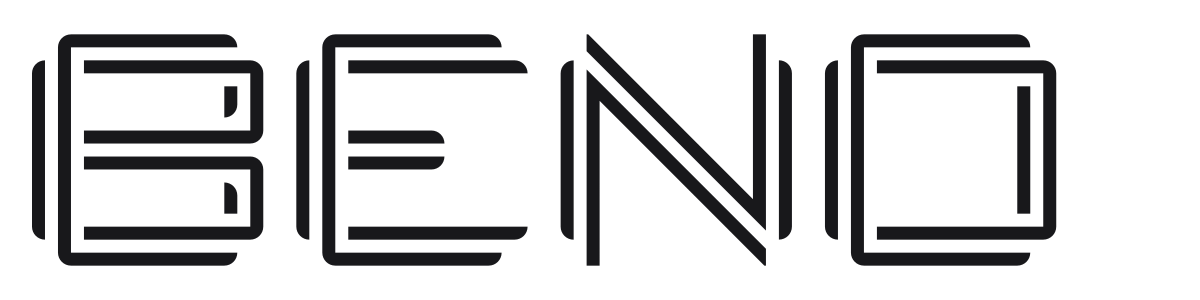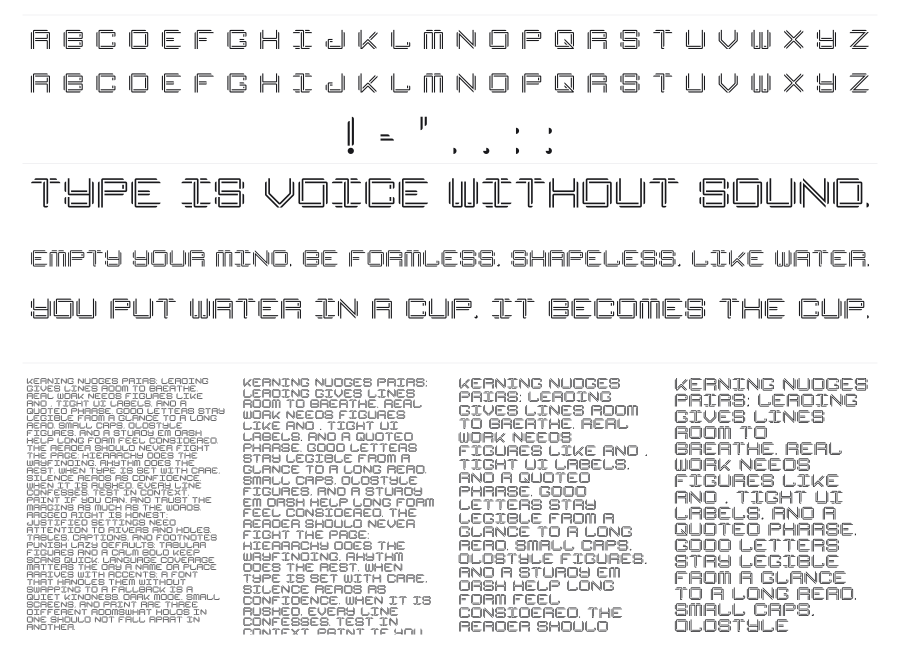
Bend
Bend is a geometric square outline font with a distinctive inline stripe treatment that gives each letter a technical, layered look. The rigid rectangular construction and parallel inner strokes evoke sci-fi interfaces and digital displays. It works best large, where those fine parallel lines stay crisp and readable.